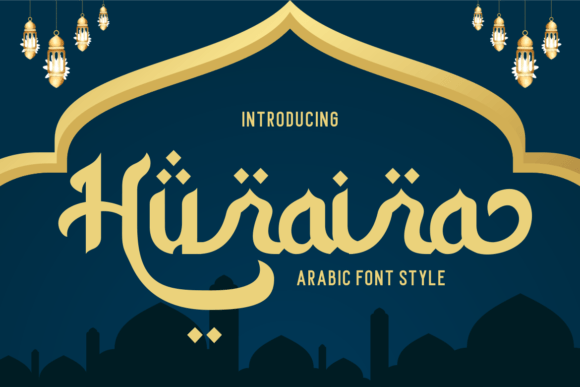
Journey through time with Huraira – A Timeless Arabic Font Rooted in Tradition.
In a world where fonts often blend together in monotonous uniformity, Huraira emerges as a radiant beacon of authenticity, a digital tribute to the timeless art of Arabic calligraphy. Inspired by the intricate beauty of traditional Arabic letters, Huraira captures the essence of culture and heritage in every stroke.
With its captivating blend of classic and contemporary, Huraira is more than just a font; it's a medium of expression, a vessel for conveying messages with depth and distinction. Whether you're a seasoned designer or just starting your creative journey, Huraira is your gateway to a world of artistic possibilities.
Unleash the Power of Authenticity
Huraira's meticulously crafted design mirrors the elegant curves and delicate flourishes of traditional Arabic writing. The inclusion of dots on select characters adds an air of authenticity, transporting you to a realm where words carry the weight of history and tradition.
Versatile and Adaptable
Huraira's versatility knows no bounds. Its adaptability makes it the perfect choice for a wide range of design applications, from crafting logos that exude cultural pride to designing eye-catching posters that transport viewers to a bygone era. Product packaging, promotional materials, titles, greeting cards, invitations – Huraira seamlessly blends with your vision, transforming ordinary designs into expressions of cultural richness.
A Font That Transcends Time
Huraira is not just a font; it's a testament to the enduring power of creativity. Its harmonious marriage of tradition and innovation ensures that your designs will stand the test of time, radiating timeless elegance and cultural significance.
Unlock Your Creative Potential
With Huraira, the possibilities are endless. Its thoughtfully incorporated alternative characters provide an extra layer of artistic expression, allowing you to customize the font to your unique design vision. Whether you're creating a visually captivating logo or curating an elegant invitation, Huraira's versatility ensures that your designs will radiate a distinctive blend of heritage and contemporary aesthetics.
Elevate Your Designs with Huraira
Huraira is more than just a font – it's an experience, a journey through time and culture. Its meticulous attention to detail breathes new life into your designs, infusing them with the rich legacy of Arabic calligraphy. Watch as Huraira transforms your logos, branding materials, posters, and various design endeavors into masterpieces of cultural sophistication.
Embrace the Legacy of Arabic Calligraphy
Huraira is your gateway to the captivating world of Arabic calligraphy, a world where words dance with grace and meaning. Its timeless beauty transcends languages and borders, captivating audiences with its intricate charm. With Huraira, you can unlock the power of expression, creating designs that resonate with cultural depth and artistic brilliance.